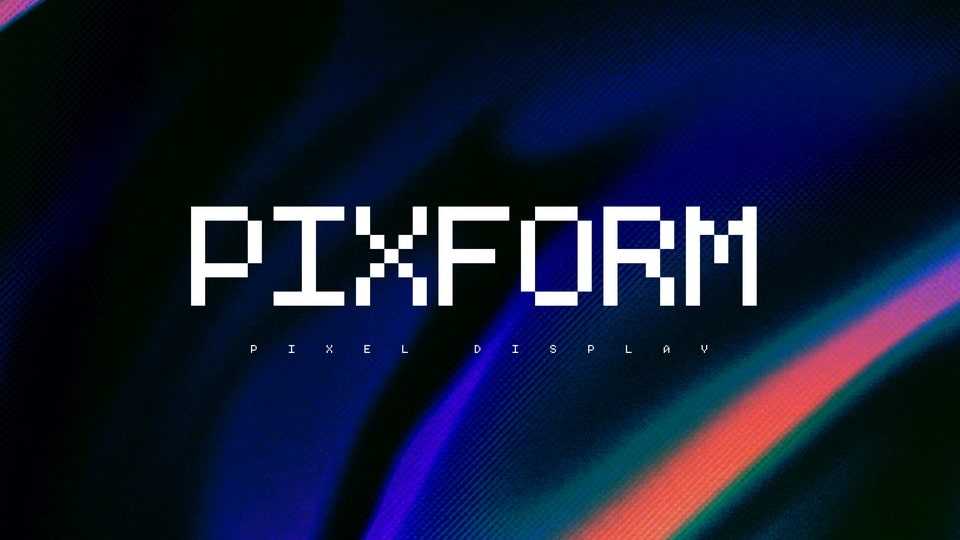
Download Pixform font, a modular, pixel-based typeface crafted for clarity, character, and code. Built on a grid of precision, it brings retro aesthetics into the modern digital canvas.